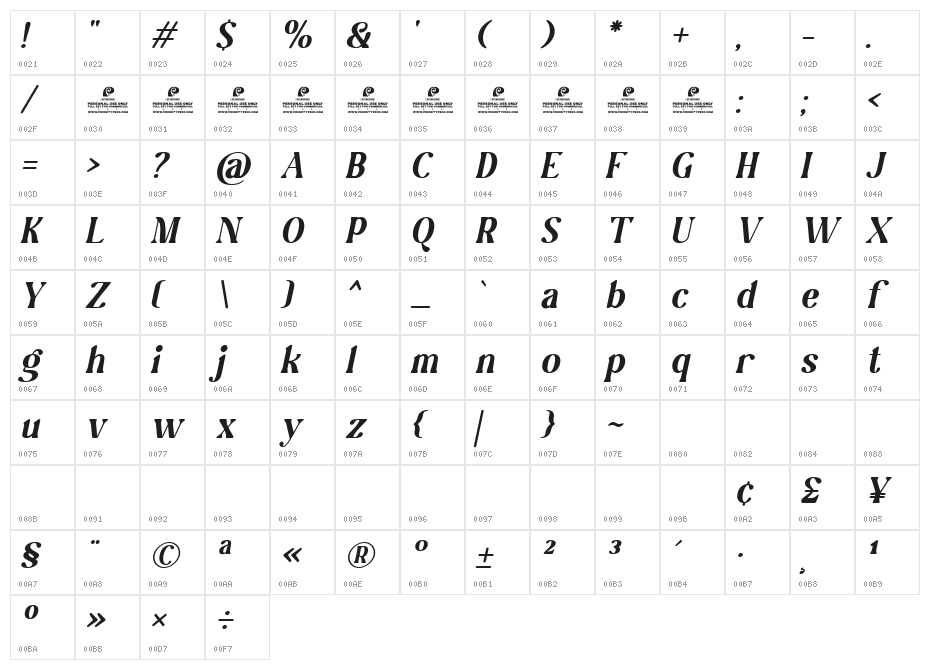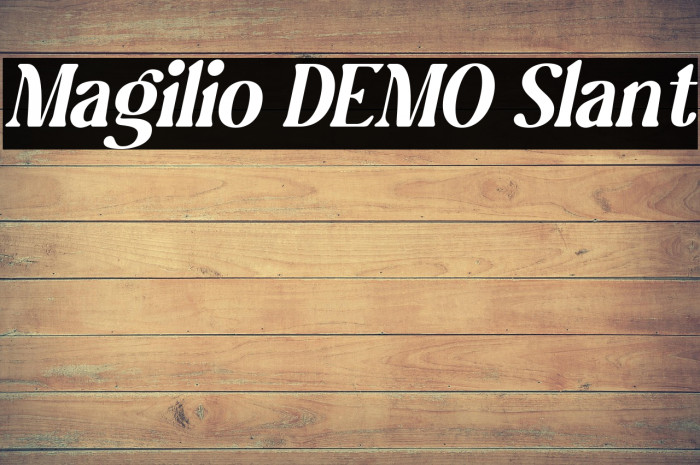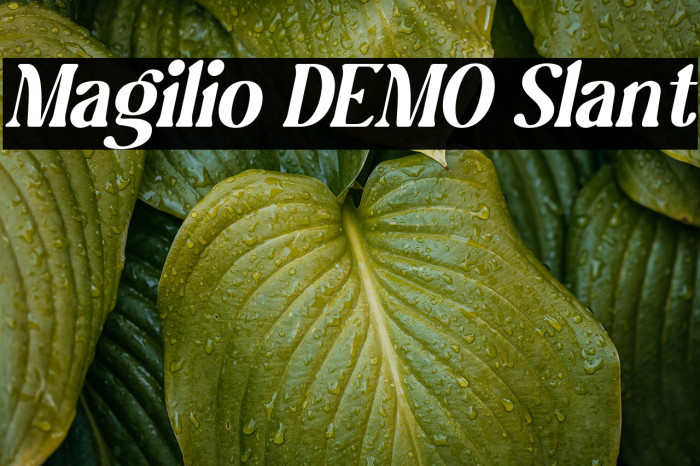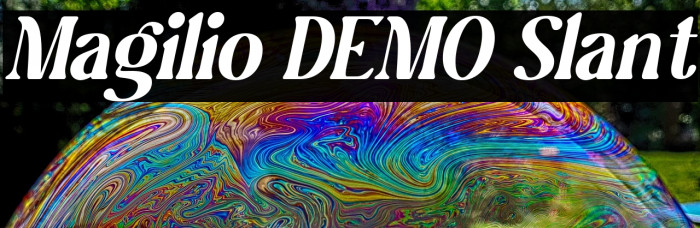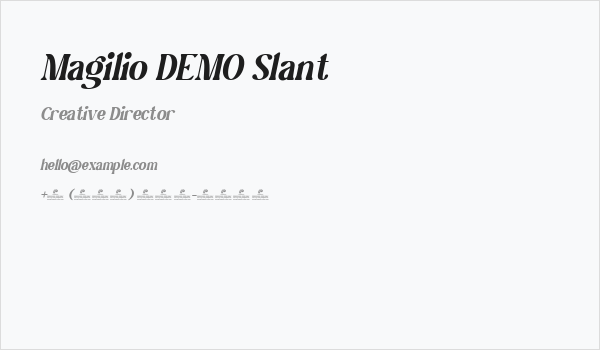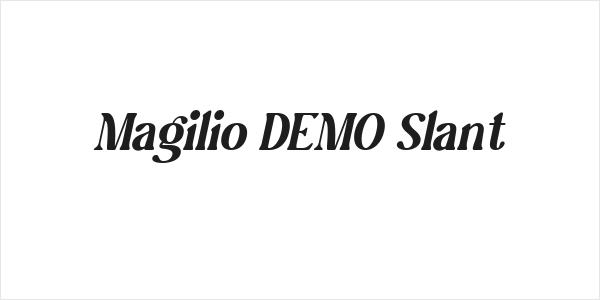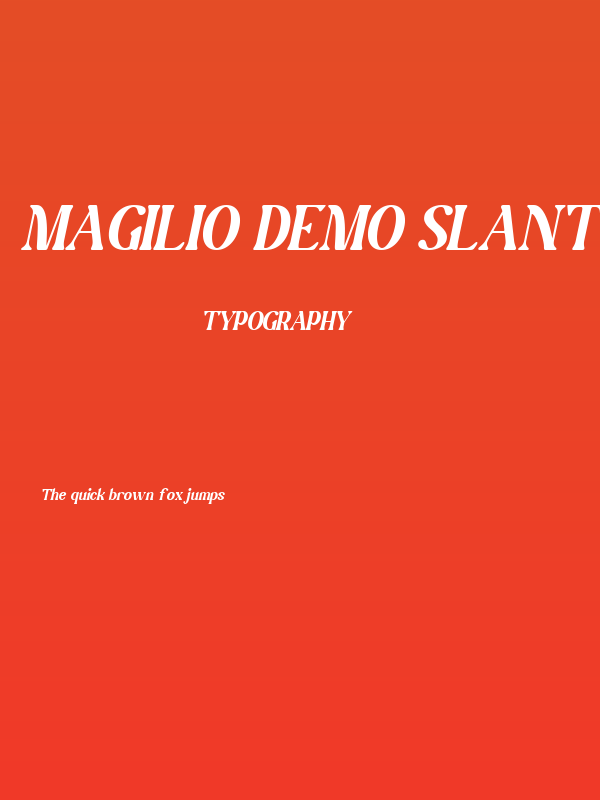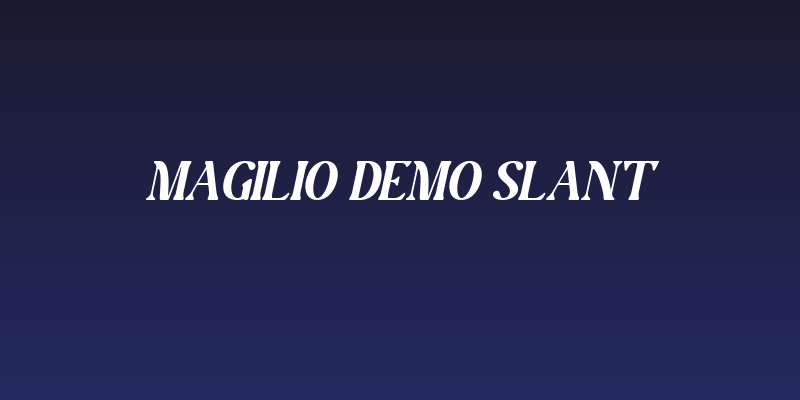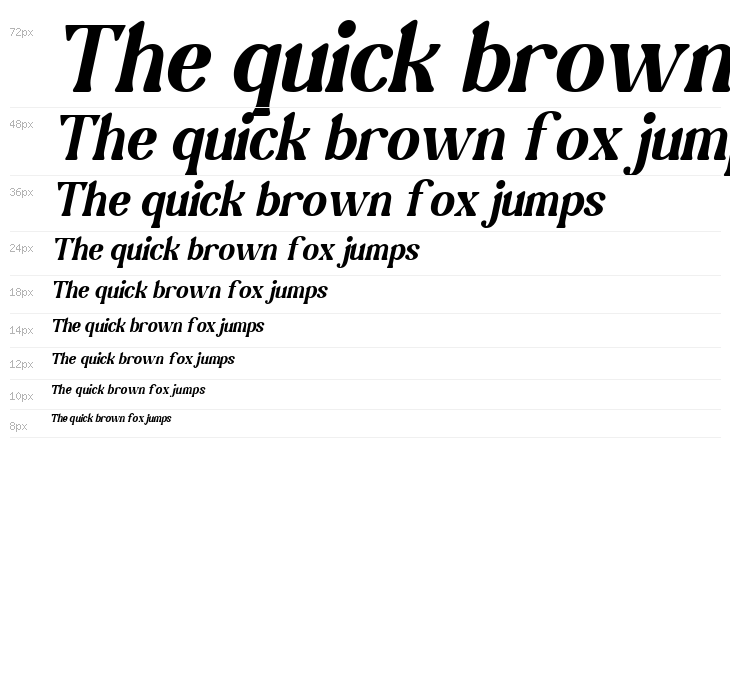
Magilio DEMO Slant Font
Magilio DEMO Slant Description
This font features a dynamic and elegant slant, giving it a sense of movement and sophistication. The characters are bold and slightly condensed, with a high contrast between thick and thin strokes, which adds to its dramatic flair. The uppercase letters are tall and commanding, while the lowercase letters maintain a consistent flow with smooth curves and sharp edges. The numerals and special characters are designed to complement the overall style, maintaining the same slanted and bold characteristics. This font is perfect for making a statement with its unique and stylish appearance.